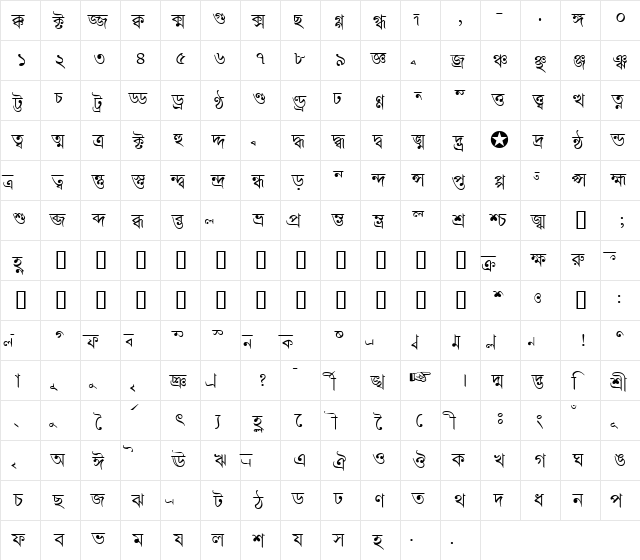
datasoft Normal
Design Context for datasoft Typeface
datasoft takes a measured approach to typography — its balanced proportions and neutral character make it a reliable workhorse for both digital and print work.
Pro Tip: Pair datasoft with a font of contrasting weight or personality to build a more expressive typographic hierarchy.